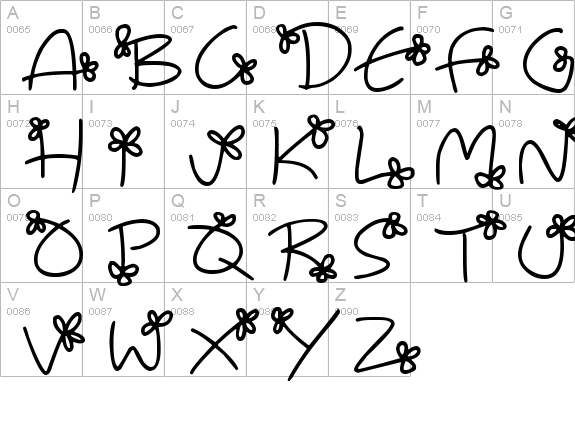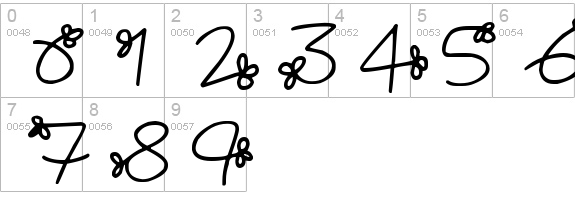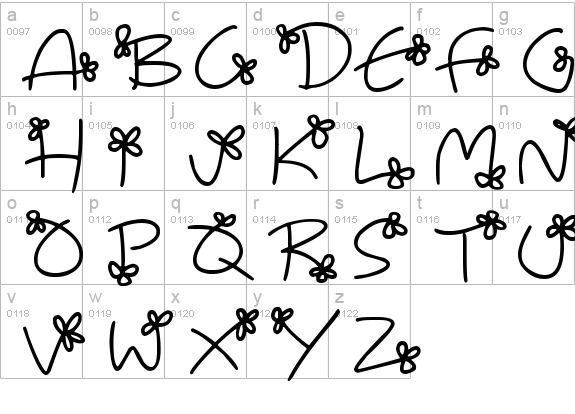
Flowing Flowers Font Details
Flowing Flowers is a free for personal use font in the Fancy > Decorative category, designed by Darrell Flood. It has been downloaded 252 times and is available for Windows, Mac and Linux.
Flowing Flowers font is a delightful and whimsical typeface that exudes elegance and grace. Its flowing, organic design is inspired by the beauty of nature and the gentle movement of blooming flowers. Each letter is intricately crafted with delicate curves and graceful flourishes, making it a perfect choice for projects that require a touch of femininity and sophistication.